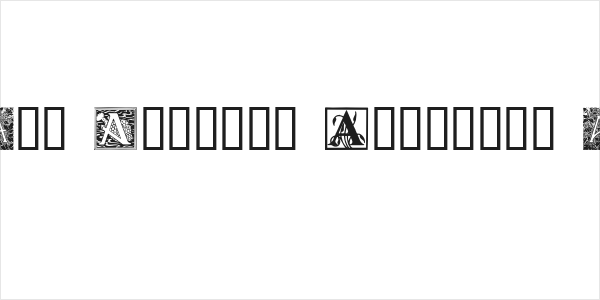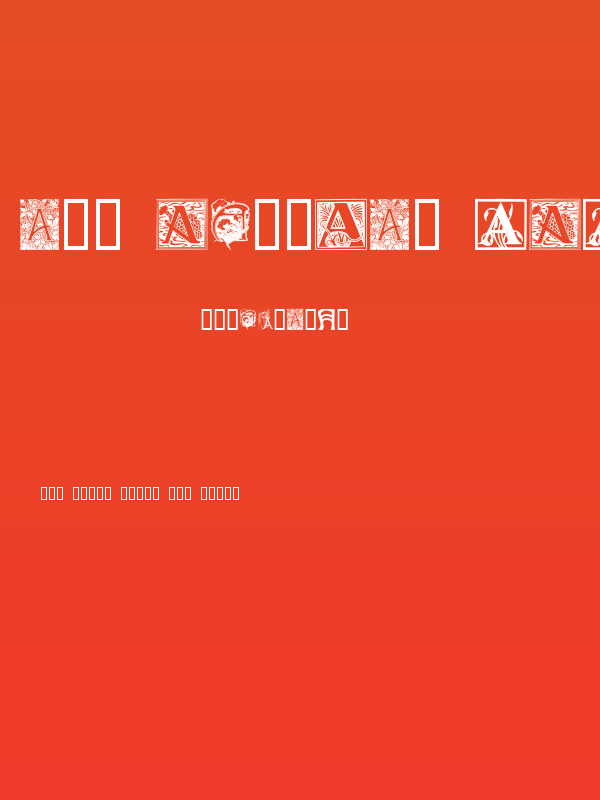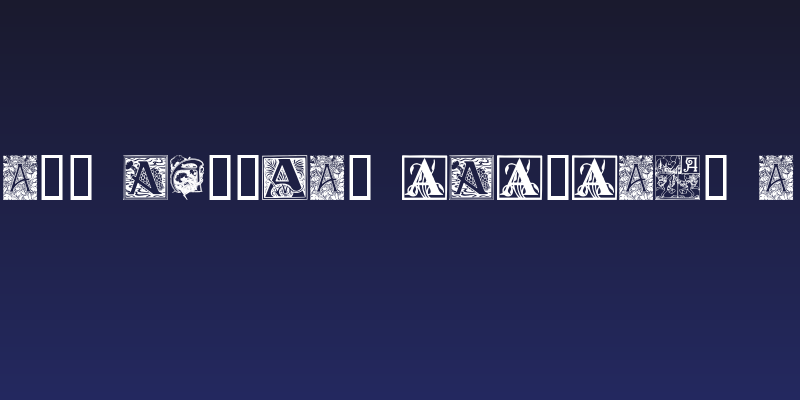
Art Nouveau Initials A Font
Art Nouveau Initials A Description
This font is a decorative Art Nouveau style, characterized by its intricate and ornate design. Each letter is enclosed in a square frame, featuring elaborate floral and organic motifs that intertwine with the letterforms. The style is highly decorative, with a focus on aesthetic beauty and artistic expression. The letters are bold and prominent, making them suitable for decorative purposes. The overall appearance is reminiscent of early 20th-century design, capturing the essence of the Art Nouveau movement with its emphasis on natural forms and elaborate details.
| Use Case | Logos, Headlines, Decorative elements |
| Proposed Projects | Ideal for use in vintage-themed projects, invitations, book covers, and decorative signage. |